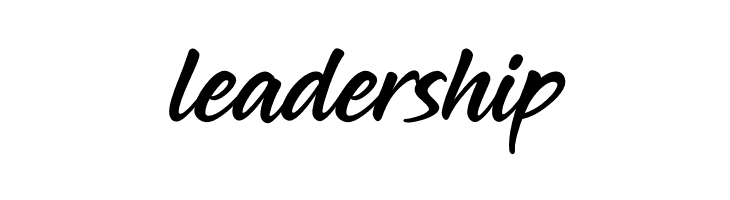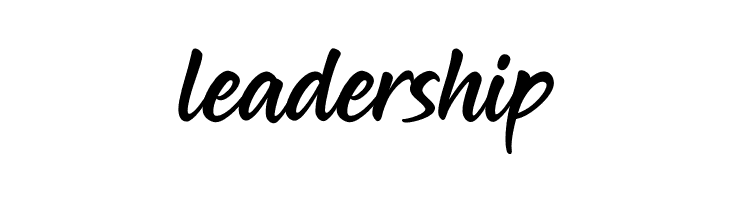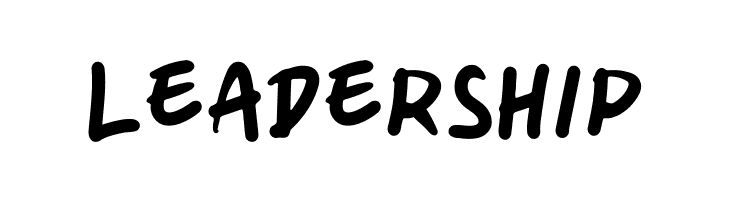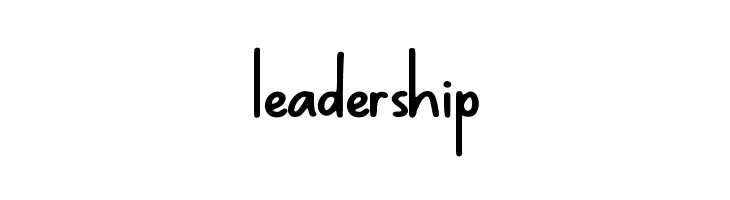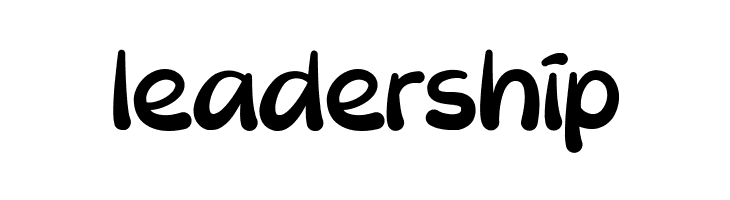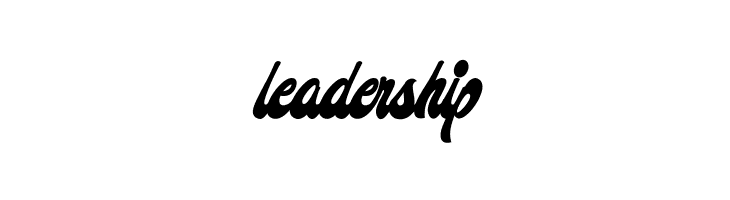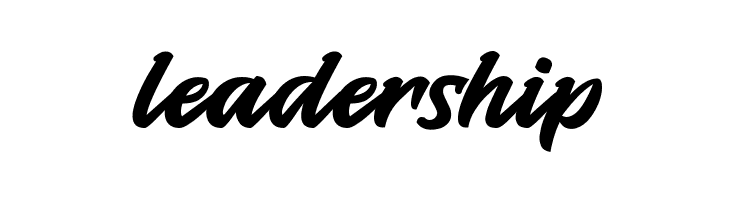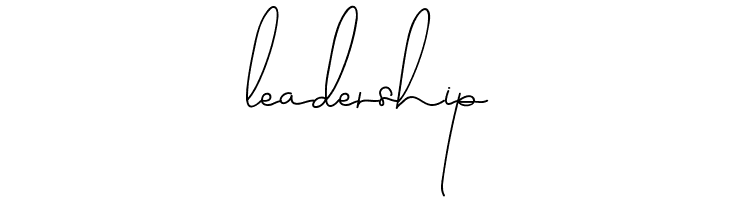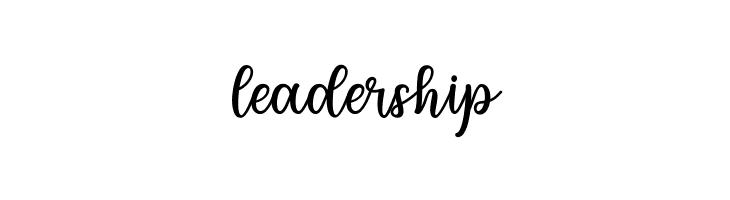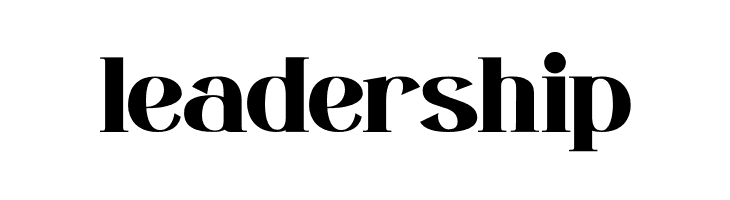
A lively, cursive script font with fluid, connected strokes.
A dynamic, cursive script font with bold strokes and a handwritten feel.
A bold, decorative script font with elegant swashes and high contrast.
A modern, geometric font with clean lines and a slightly condensed style.
A bold, geometric font with clean lines and a modern aesthetic.
A modern, italicized font with clean lines and a geometric structure.
A bold, geometric stencil font with a modern, industrial feel.
An elegant and sophisticated script font with intricate loops and swirls.
A bold, brush-style font with expressive and dynamic strokes.
A bold, geometric font with angular lines and a blocky appearance.
A bold, 3D shadow font with a geometric and angular design.
A playful handwritten font with rounded characters and consistent stroke width.
A fluid and elegant handwritten script font with a dynamic flow.
A bold, retro font with playful curves and a vintage flair.
A bold, expressive handwritten font with playful curves and a casual vibe.
A modern sans-serif font with playful circular elements and geometric design.
A bold, high-contrast serif font with dramatic strokes and elegant curves.
A bold, flowing script font with elegant cursive letterforms.
An elegant, flowing script font with smooth cursive strokes and dynamic slant.
A flowing, cursive script font with elegant, sweeping lines.
A bold, handwritten font with rounded strokes and a playful style.
A playful, bold script font with a handwritten style.
A cursive, handwritten-style font with elegant loops and swirls.
A playful and elegant script font with flowing, cursive letterforms.
A flowing, cursive script font with elegant, interconnected strokes.
A sophisticated cursive script with elegant, flowing strokes and ornate flourishes.
A dynamic and fluid brush script font with elegant, flowing letterforms.
A fluid and elegant script font with a modern calligraphic style.
A bold, dynamic script font with fluid, connected letterforms.
A bold, expressive handwritten font with dynamic brush-like strokes.
A lively handwritten font with fluid, expressive strokes.
A bold, brush-stroke font with a dynamic and artistic style.
A modern, handwritten font with elegant, flowing lines and a cursive-like appearance.
A playful, rounded, and bold font with a handwritten feel.
A bold, expressive handwritten font with brush-like strokes and dynamic flow.